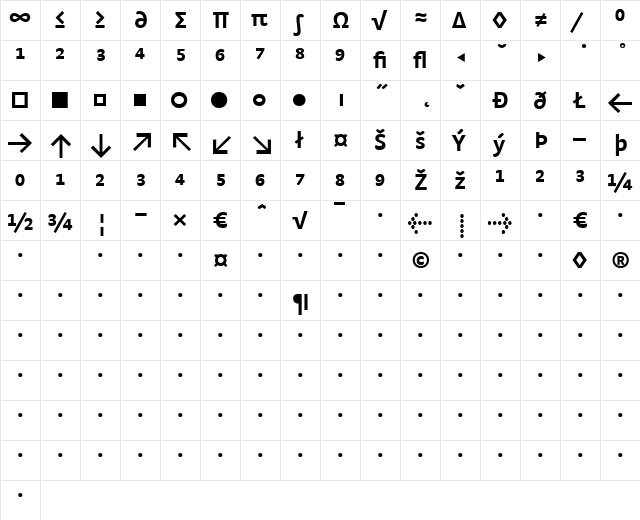
StradaExp-Bold Regular
| Designer | Albert Pinggera |
Design Context for StradaExp-Bold Typeface
StradaExp-Bold is a composed and adaptable typeface that performs quietly and consistently across a wide range of design contexts. The heavy weight commands attention and anchors typographic hierarchies.